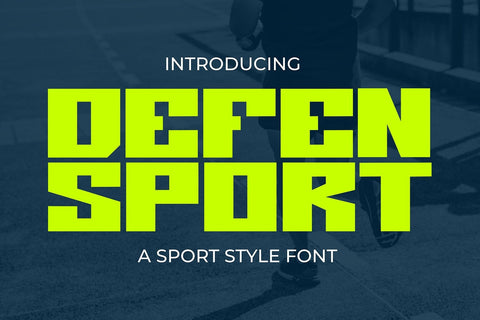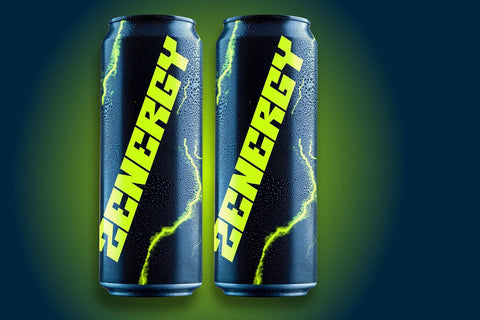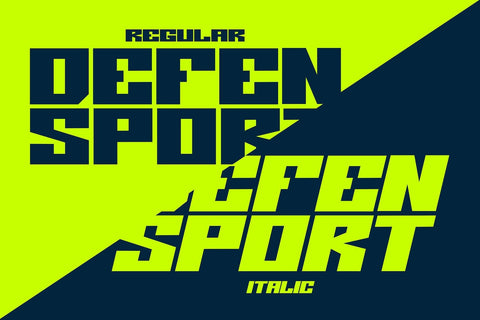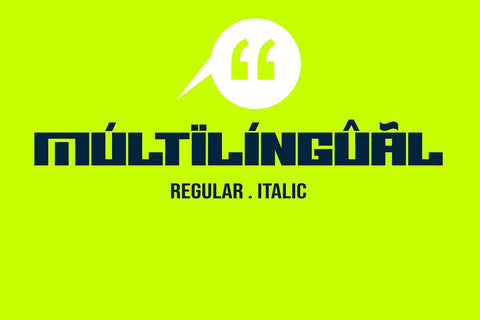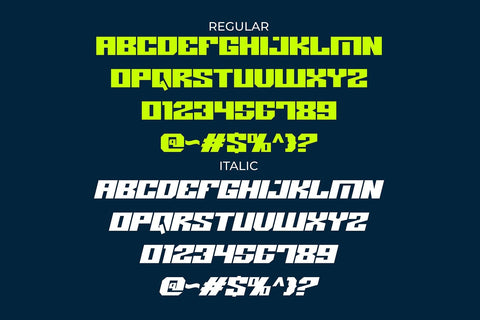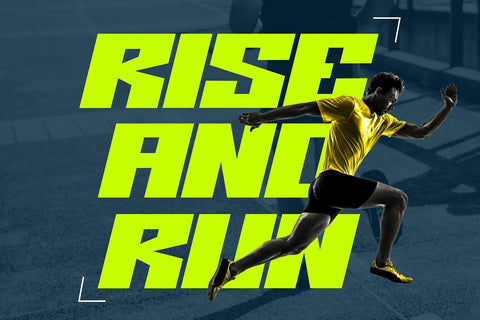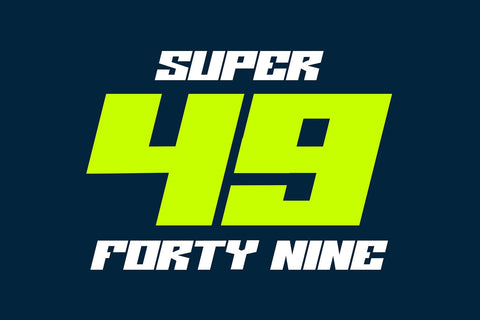
Defen Sport - Sport Moto Font
"Defen Sport" is a dynamic display font designed with a sporty theme in mind. Featuring bold and italic characters, this font exudes strength and athleticism, making it perfect for sports-related projects and branding. The bold characters command attention, while the italic style adds a sense of speed and movement, capturing the essence of competitive sports. Whether used for posters, banners, team logos, or athletic apparel, "Defen Sport" is sure to bring energy and excitement to any design with its bold and dynamic typography.